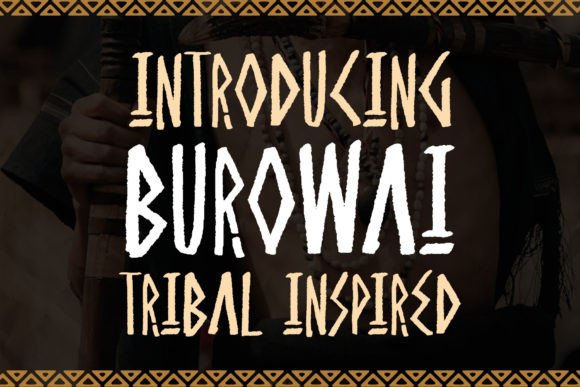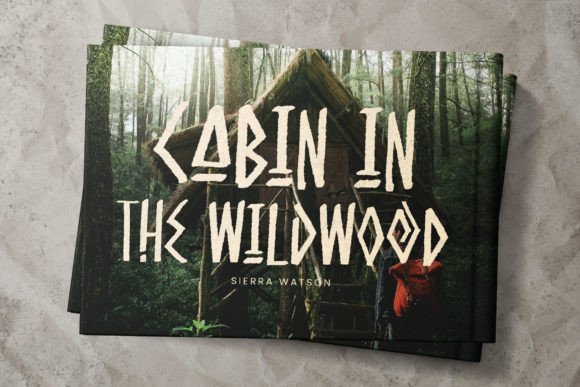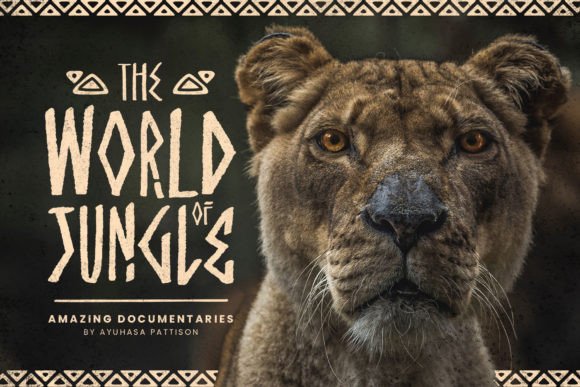
Burowai Font
Burowai is a cool display font, inspired by ancient Greek letters and tribal ornaments. This ethnic font was inspired by the shapes of tree branches and combined with rough strokes such as ancient symbols inscribed in caves. Perfect for folk, tribal, and adventure-themed designs.